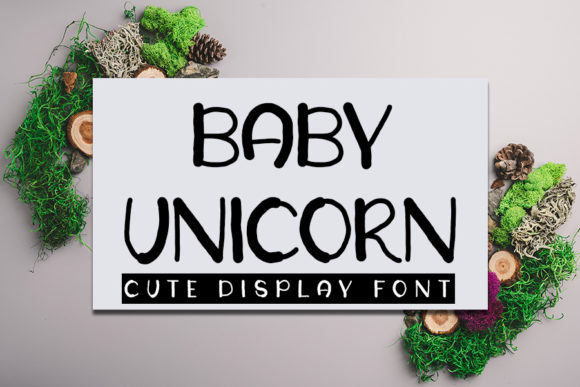
Baby Unicorn Font
Embark on a whimsical journey into the world of typography with Baby Unicorn Font, a display font that sparks a universe of enchantment and imagination. Its charming persona and meticulously crafted characters will effortlessly captivate your audience, leaving them spellbound by its magical charm. Whether you're designing whimsical invitations, crafting enchanting logos, or creating captivating social media posts, Baby Unicorn Font is the perfect partner to bring your creative visions to life.
With Baby Unicorn Font, you'll have the power to transform ordinary designs into extraordinary masterpieces. Its playful and exuberant nature will add a touch of wonder and whimsy to any project, making it an ideal choice for designers seeking to evoke a sense of joy and lightheartedness. Unleash your creativity and let Baby Unicorn Font guide you into a realm where imagination knows no bounds.
This display font possesses an unparalleled versatility, effortlessly adapting to a myriad of design aesthetics. Its captivating curves and enchanting details will shine brightly against busy backgrounds, commanding attention and leaving a lasting impression. Alternatively, let Baby Unicorn Font take center stage as a standalone headline, its captivating presence captivating your audience from the very first glance.
Created by the talented hands of FL Space, Baby Unicorn Font is a testament to the power of imagination and the magic of typography. With its playful spirit and enchanting allure, this font has the power to transport you to a world where unicorns dance among the stars and dreams come true. Let Baby Unicorn Font be your guide into this enchanting realm, where creativity flourishes and imagination reigns supreme.